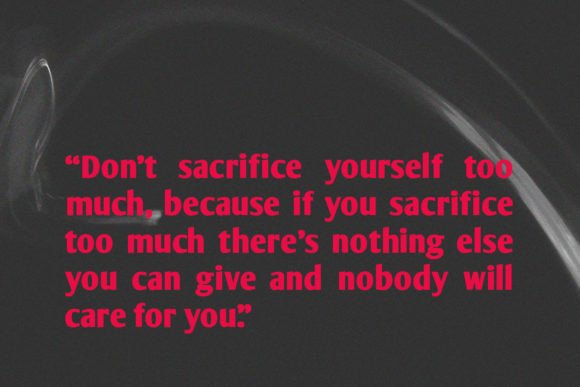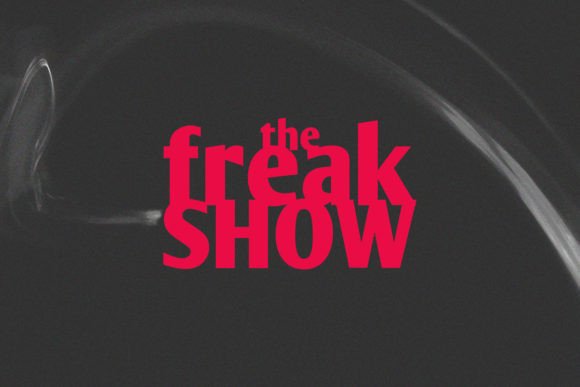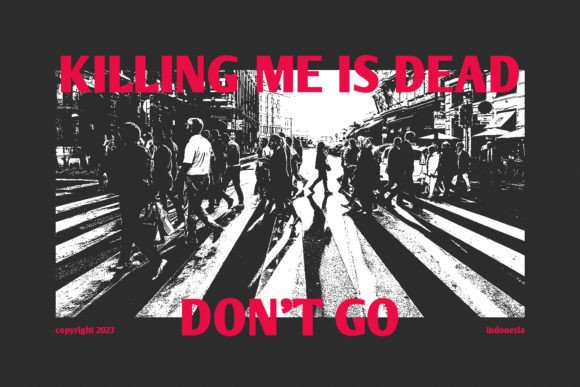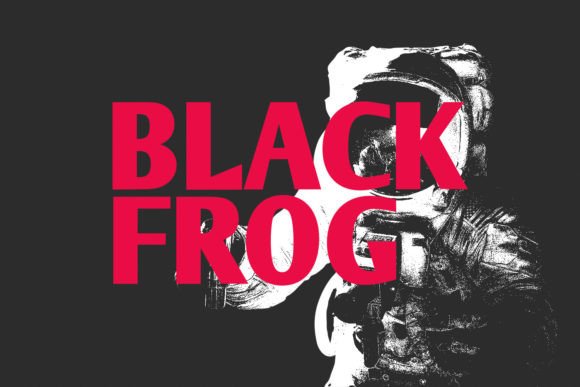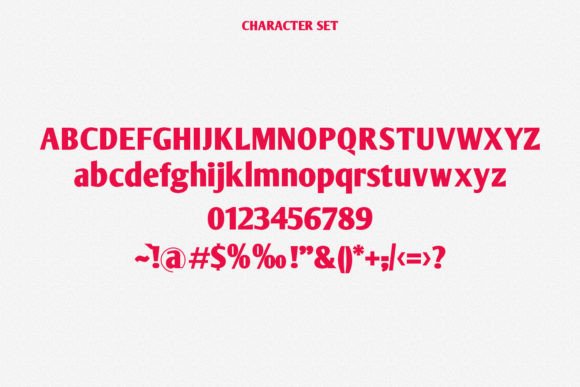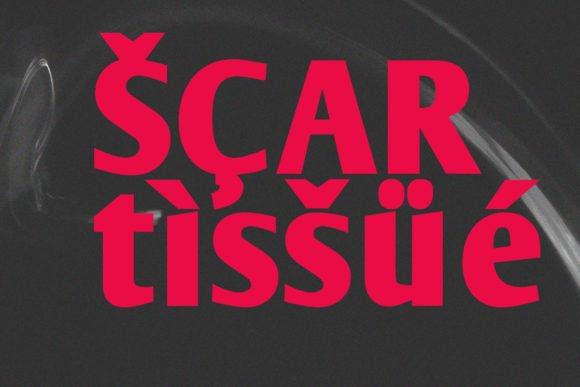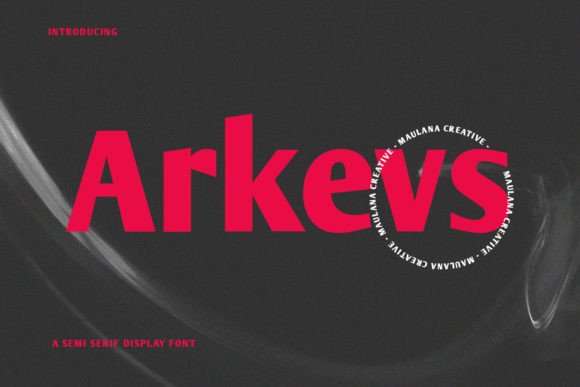
Introducing Arkevs Font: A Timeless Classic with a Touch of Elegance
In the world of typography, fonts play a crucial role in conveying the tone and personality of a brand or design. When it comes to making a statement, a well-crafted display font can be a game-changer. This is where Arkevs Font comes in – a classic display font that exudes elegance and sophistication. With its bold, semi-serif letterforms, Arkevs is expertly designed to turn heads and leave a lasting impression.
The Design Philosophy Behind Arkevs
Arkevs Font boasts a well-balanced design that makes it perfect for a wide range of applications, from headings and titles to logos and branding. Its semi-serif letterforms add a touch of refinement, while its bold strokes ensure that it commands attention. The designers behind Arkevs have carefully crafted each letter to ensure that it is not only aesthetically pleasing but also highly legible.
One of the standout features of Arkevs Font is its versatility. Whether you’re working on a modern design project or a traditional one, Arkevs is up to the task. Its classic design ensures that it will never go out of style, making it a reliable choice for designers and crafters. From sleek and contemporary branding to elegant and sophisticated editorial design, Arkevs Font is the perfect choice.
Key Features of Arkevs Font
- Bold, semi-serif letterforms: Arkevs Font features bold, semi-serif letterforms that are designed to make a statement.
- Well-balanced design: The font’s well-balanced design ensures that it is perfect for headings, titles, and logos.
- Versatile: Arkevs Font is versatile enough to be used in both modern and traditional designs.
- Elegant and sophisticated: The font’s classic design and elegant feel make it perfect for designs that require a touch of sophistication.
Why Choose Arkevs Font?
With so many fonts available, why choose Arkevs Font? Here are just a few reasons why designers and crafters are falling in love with this classic display font:
- Unique and distinctive: Arkevs Font is a unique and distinctive font that will help your design stand out from the crowd.
- Highly legible: Despite its bold strokes, Arkevs Font is highly legible, making it perfect for designs where clarity is key.
- Easy to pair with other fonts: Arkevs Font is easy to pair with other fonts, making it a great choice for designs that require a combination of fonts.
- Supports multiple languages: Arkevs Font supports multiple languages, making it a great choice for global brands and designs.
Using Arkevs Font in Your Designs
So, how can you use Arkevs Font in your designs? Here are a few ideas to get you started:
- Headings and titles: Use Arkevs Font to create bold and eye-catching headings and titles.
- Logos and branding: Arkevs Font is perfect for logos and branding, adding a touch of elegance and sophistication to your brand.
- Editorial design: Use Arkevs Font to add a touch of class to your editorial designs, from magazines to newspapers.
- Packaging design: Arkevs Font is a great choice for packaging design, adding a touch of elegance and sophistication to your product packaging.
In conclusion, Arkevs Font is a timeless classic with a touch of elegance. Its bold, semi-serif letterforms and well-balanced design make it perfect for headings, titles, and logos. With its versatility and highly legible design, Arkevs Font is a reliable choice for any design project. Whether you’re a designer or crafter, Arkevs Font is a great addition to your font library.